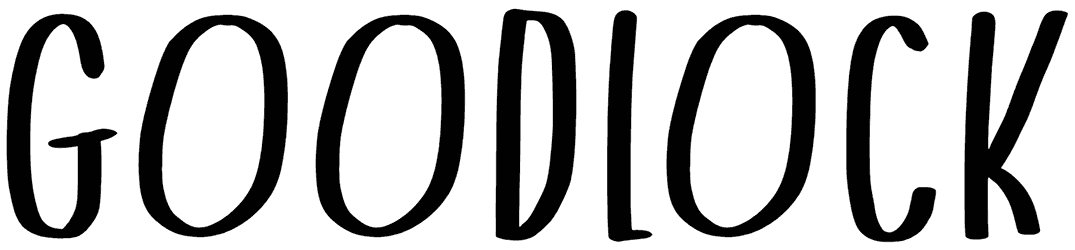
Goodlock Font
For your forthcoming design, you can use a natural and friendly outward. This cartoon font, which is called Goodlock, has exactly this vibe with its sweet curly letterform.
Although small letters are not included in this combination, this handwritten font would put its maximum in assembling an interesting show for any scheme, such as match cartoons, storybook covers, toy packaging, cosmetic brand, and so on.